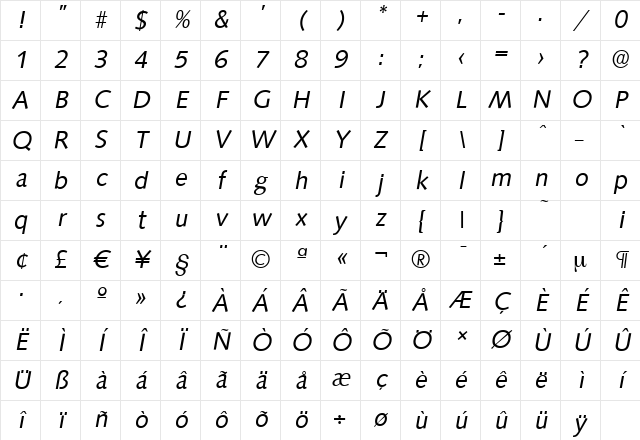
SaxonySerial Italic
Complete SaxonySerial Italic glyph index. Displaying only characters natively supported by SaxonySerial Italic font.
Design Context for SaxonySerial
SaxonySerial is a composed and adaptable typeface that performs quietly and consistently across a wide range of design contexts. The slanted form adds forward momentum and visual energy.